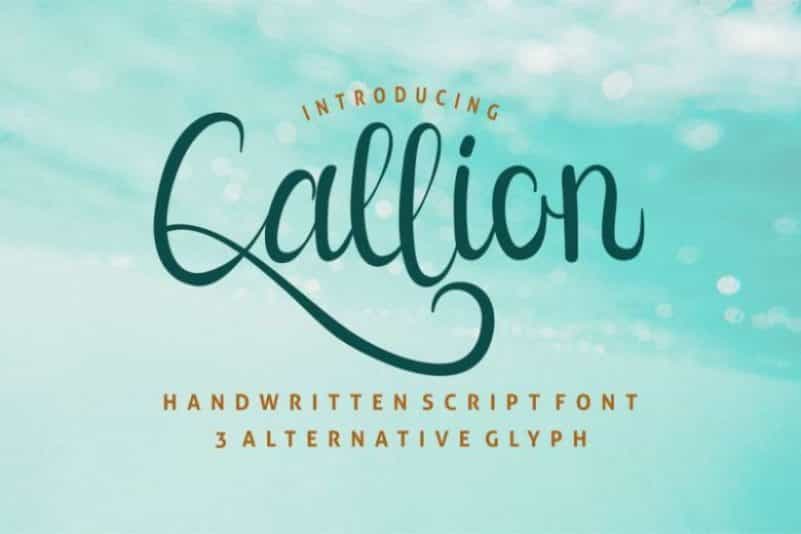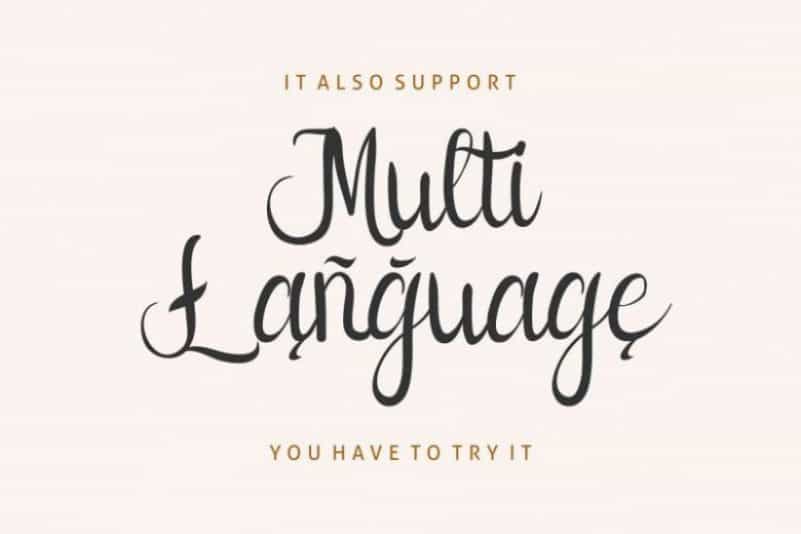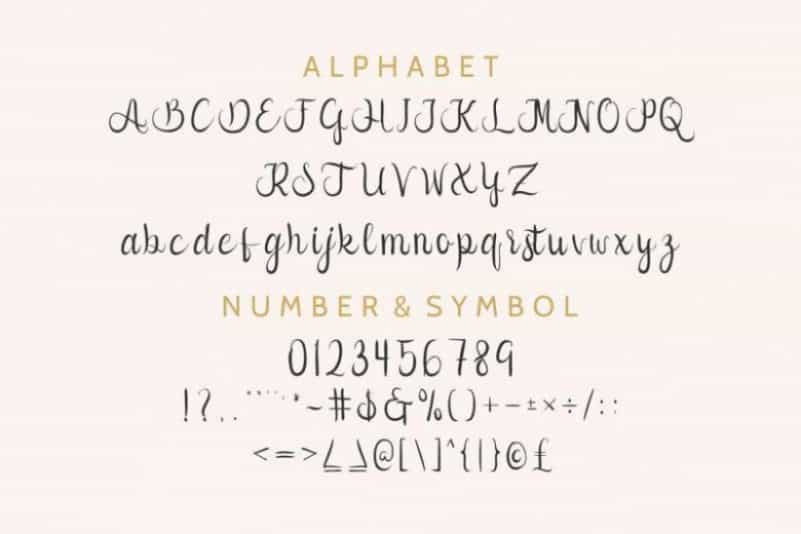
Callion is a calligraphic script font that was written by hand. It is in standard regular and italic style. Each glyph has 3 alternatives characters: standard tail, upside tail or downside tail. Great for branding, logo, stationery, business card, invitation, flyer, brochure etc.